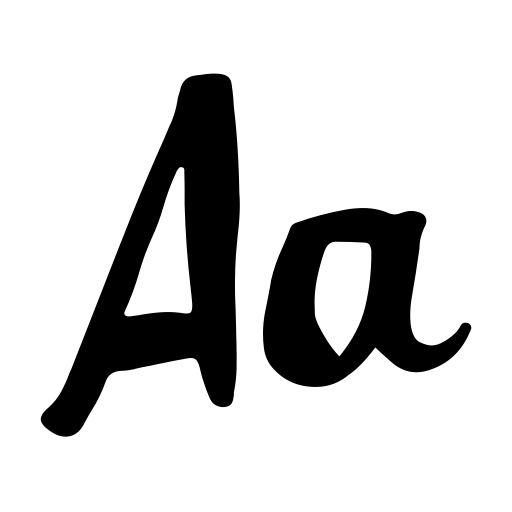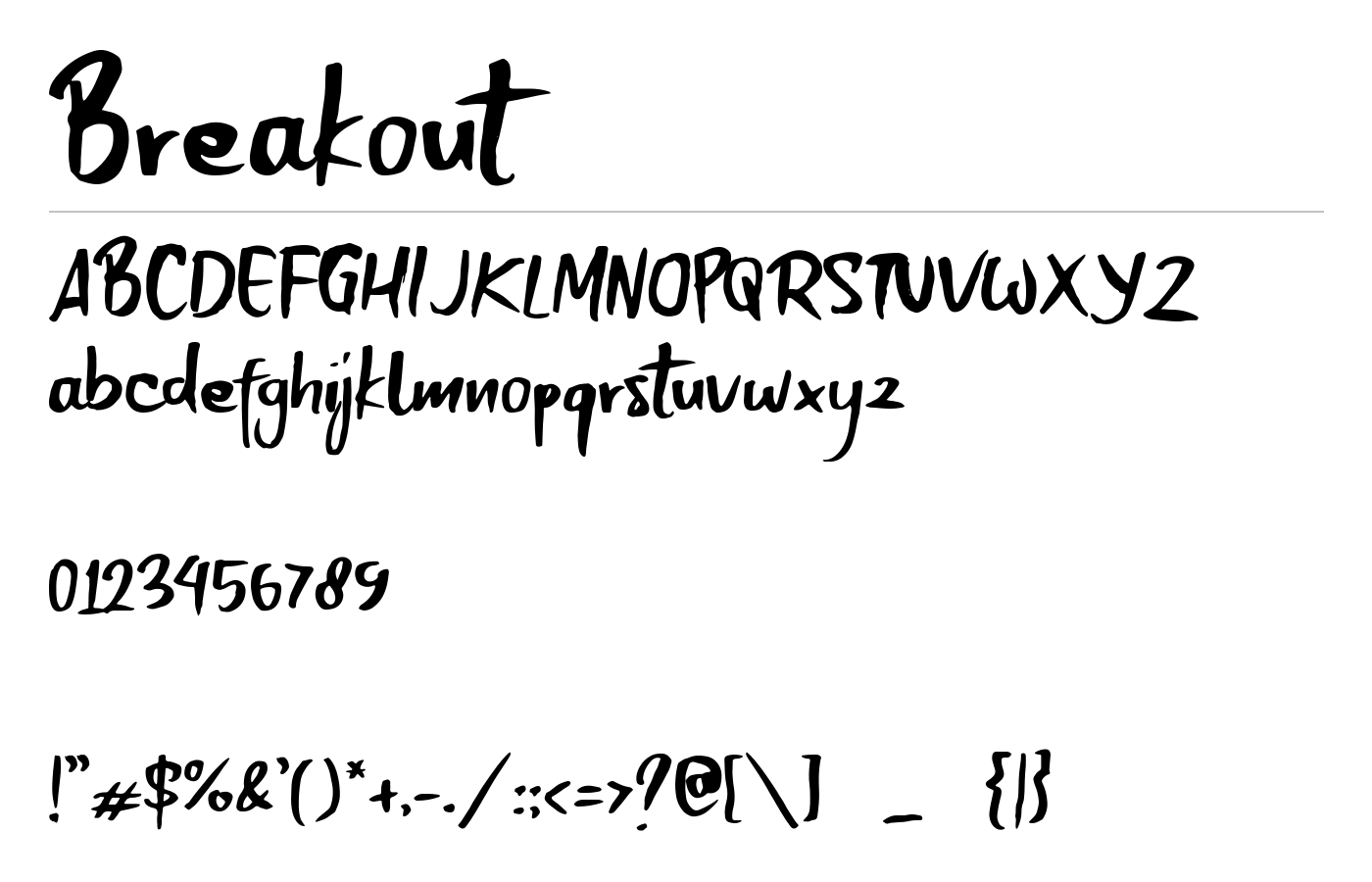
Breakout Font is a lively and expressive handwritten script that combines a casual yet bold style with dynamic, energetic strokes. Its irregular letterforms and playful curves give it a personable, creative feel, making it perfect for projects needing a touch of spontaneity and individuality. This font works well for branding, posters, and invitations where a fun, artistic, and informal tone is desired.
Breakout Font
About Breakout Font
| Font family | Breakout Font |
| Designer | Lettersiro 2018 |